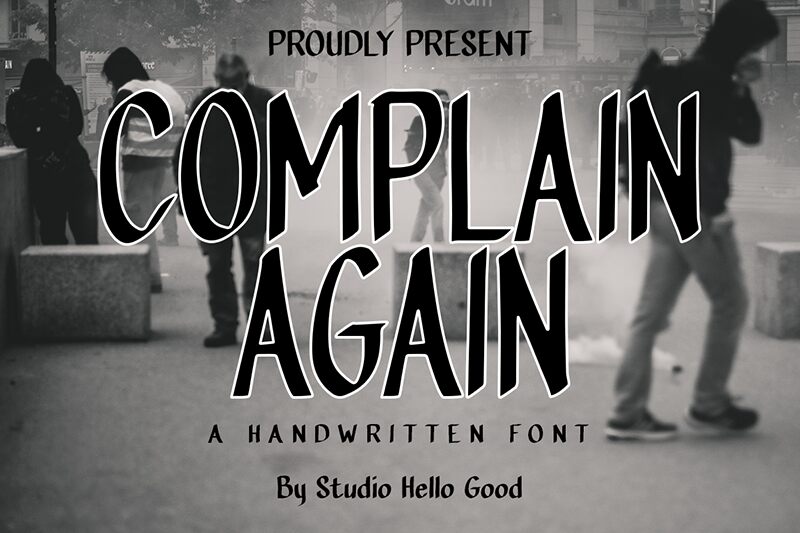
Complain Again
Complain Again font has a Gothic influence with a calligraphic flair, making it the perfect combination between traditional elegance and medieval aesthetic. The free handwritten font features expressive curves that breath life into each character for gripping texts.
The font is ideal in logo designs, magazine covers, movie posters, greeting cards, advertising projects, branding designs, and restaurant menus. It will load its charms in invitation cards as well including wedding invitations.
Studio Hello Good
Rachmad Bagus Fatchi